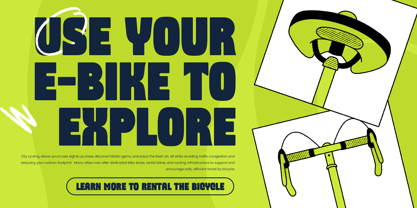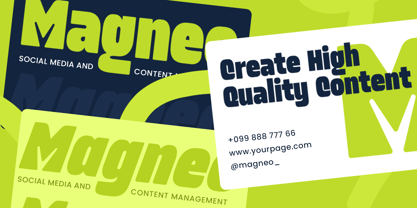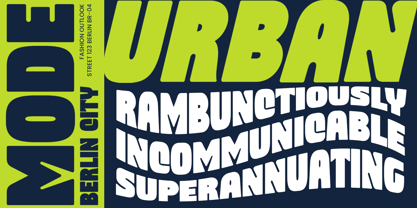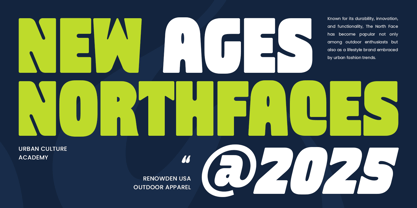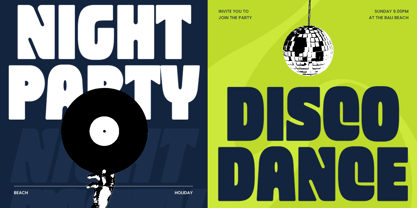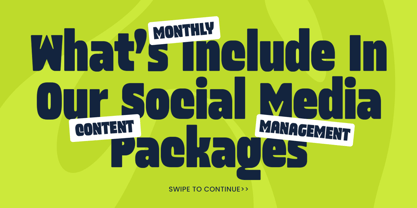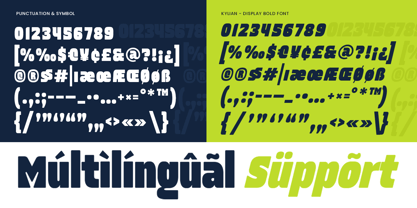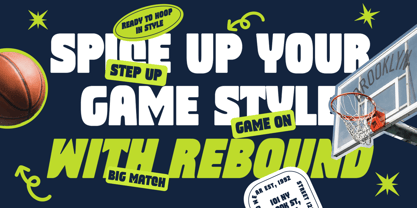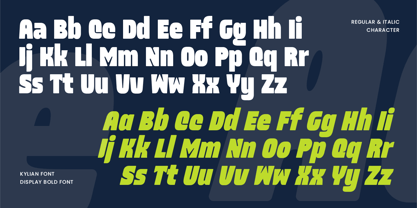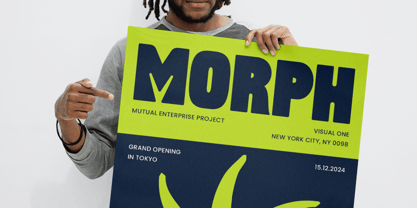
KYLIAN is a display bold font crafted for designers seeking strength, clarity, and modern elegance in their projects. Its robust letterforms make it ideal for logos, branding, headings, posters, and any design that requires a bold statement.
Whether you’re creating corporate identities, digital graphics, or print materials, KYLIAN delivers a polished, contemporary look that stands out. Its minimal yet impactful style ensures versatility across multiple design applications.
Strong, bold letterforms ideal for logos and branding
Clean and modern design for versatile use
Includes uppercase, lowercase, numerals, and punctuation
Professional and stylish appearance for digital or print projects
OpenType features for flexible typographic control
Make every headline, logo, or design stand out with KYLIAN – bold, modern, and unforgettable. ✨️